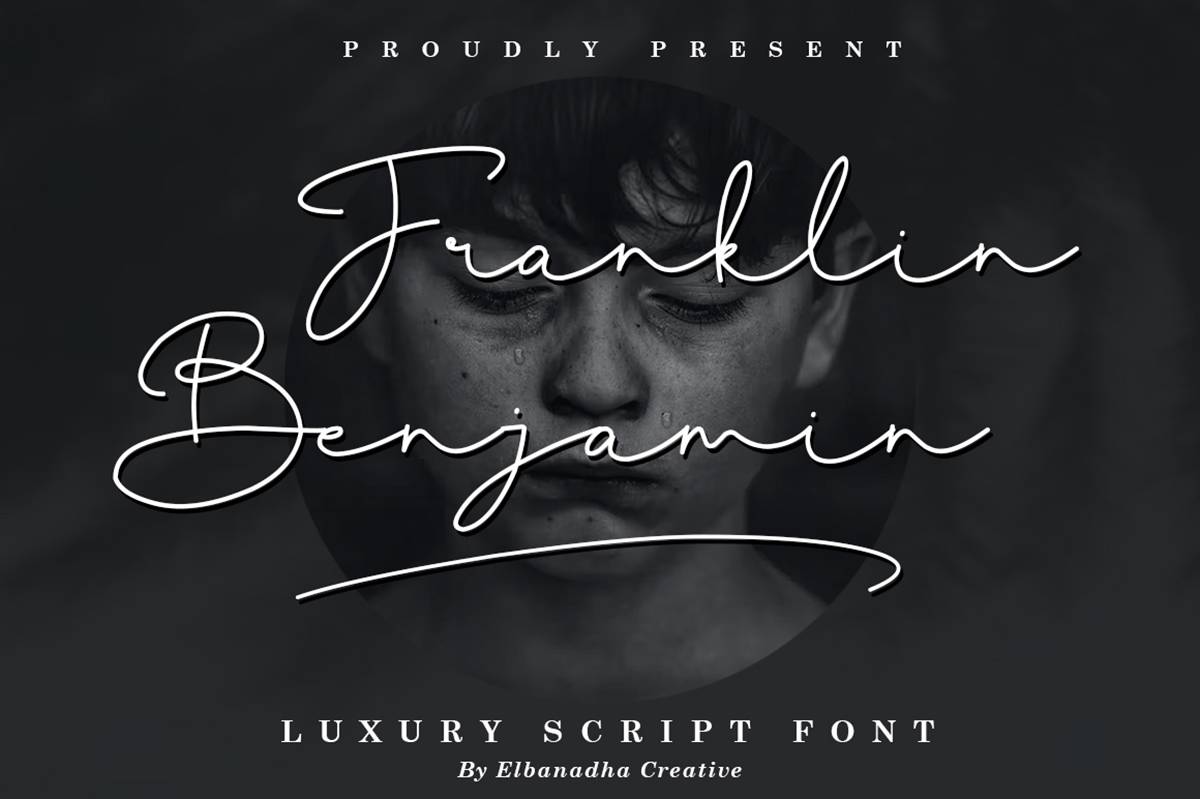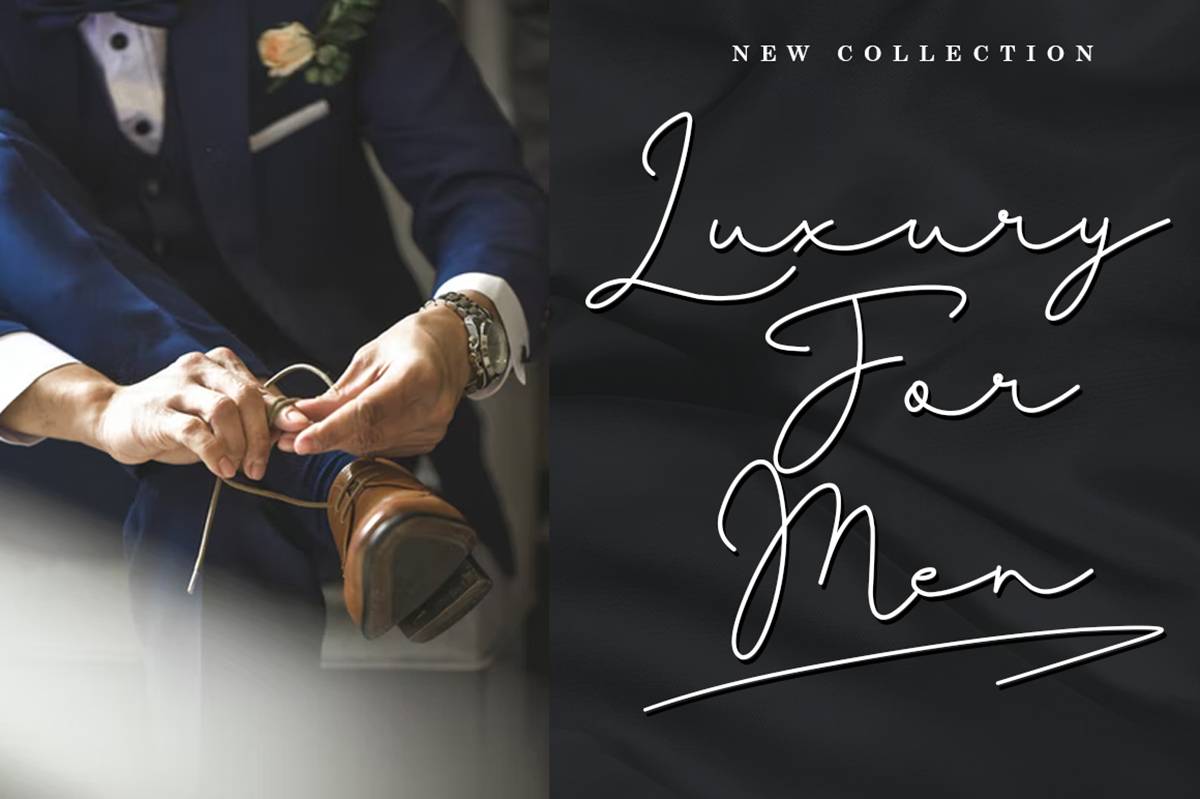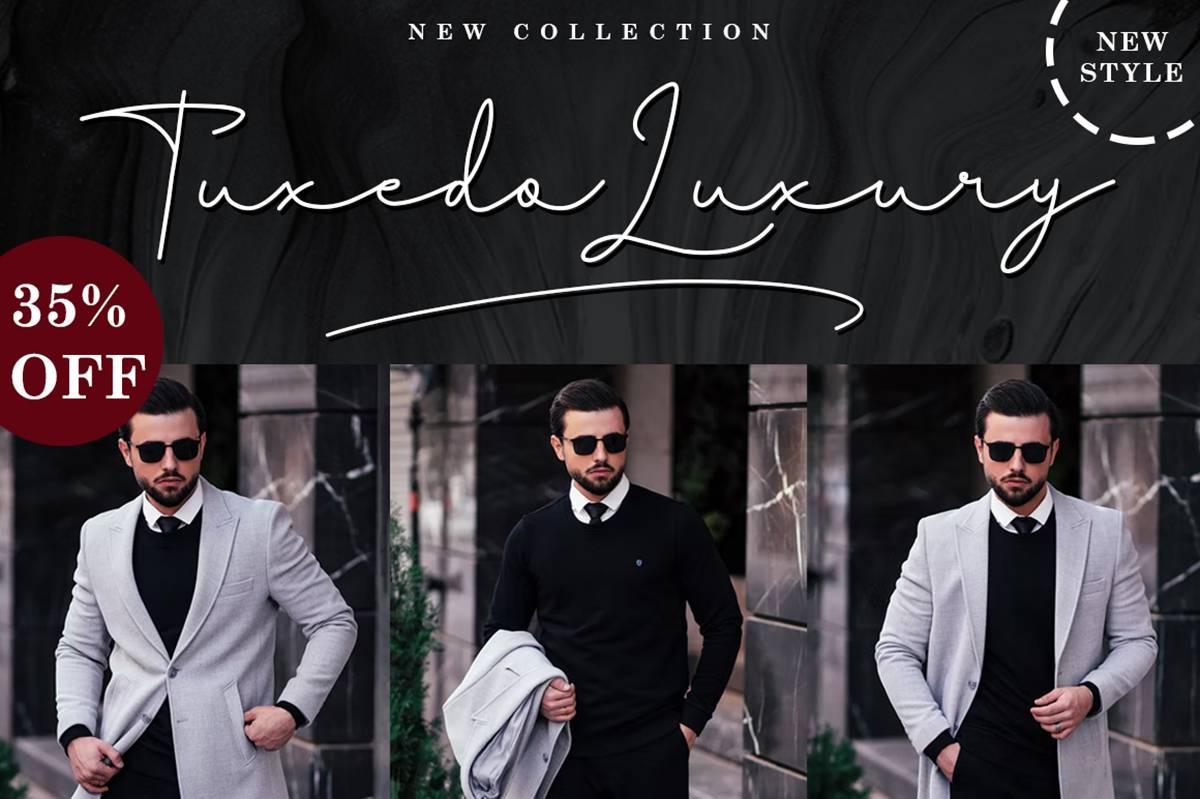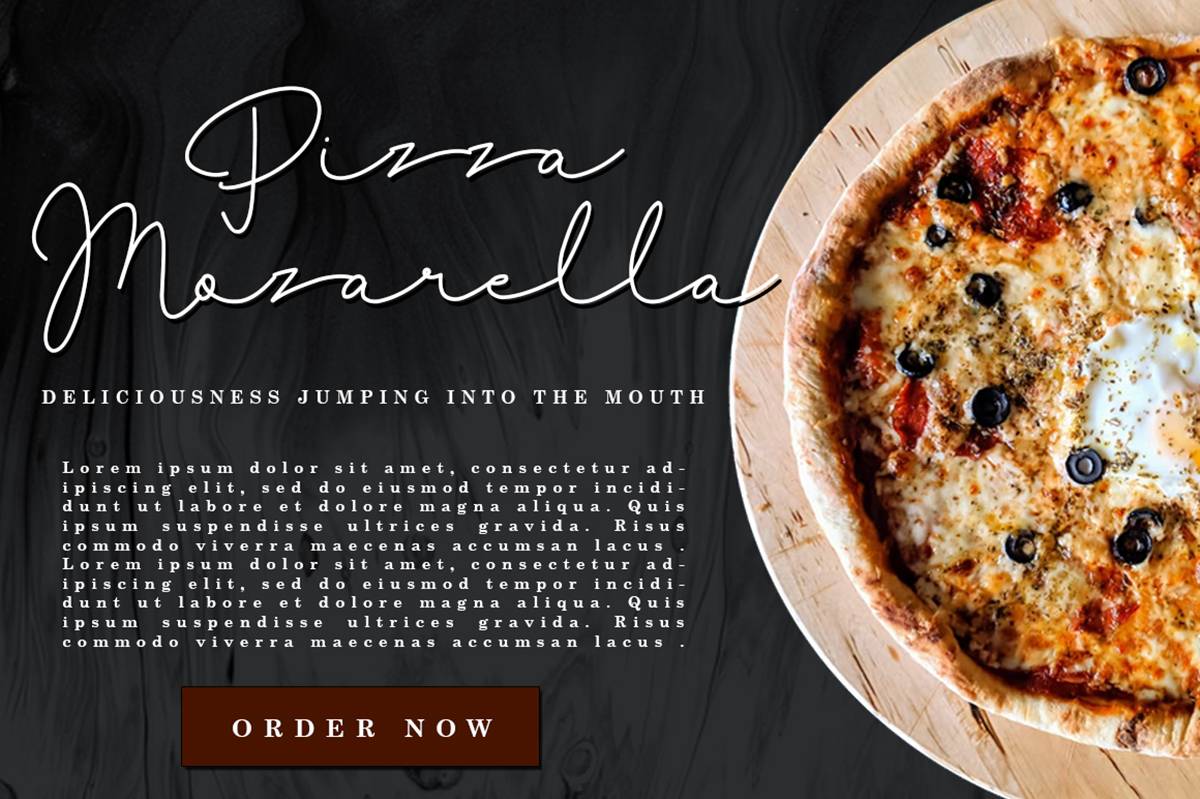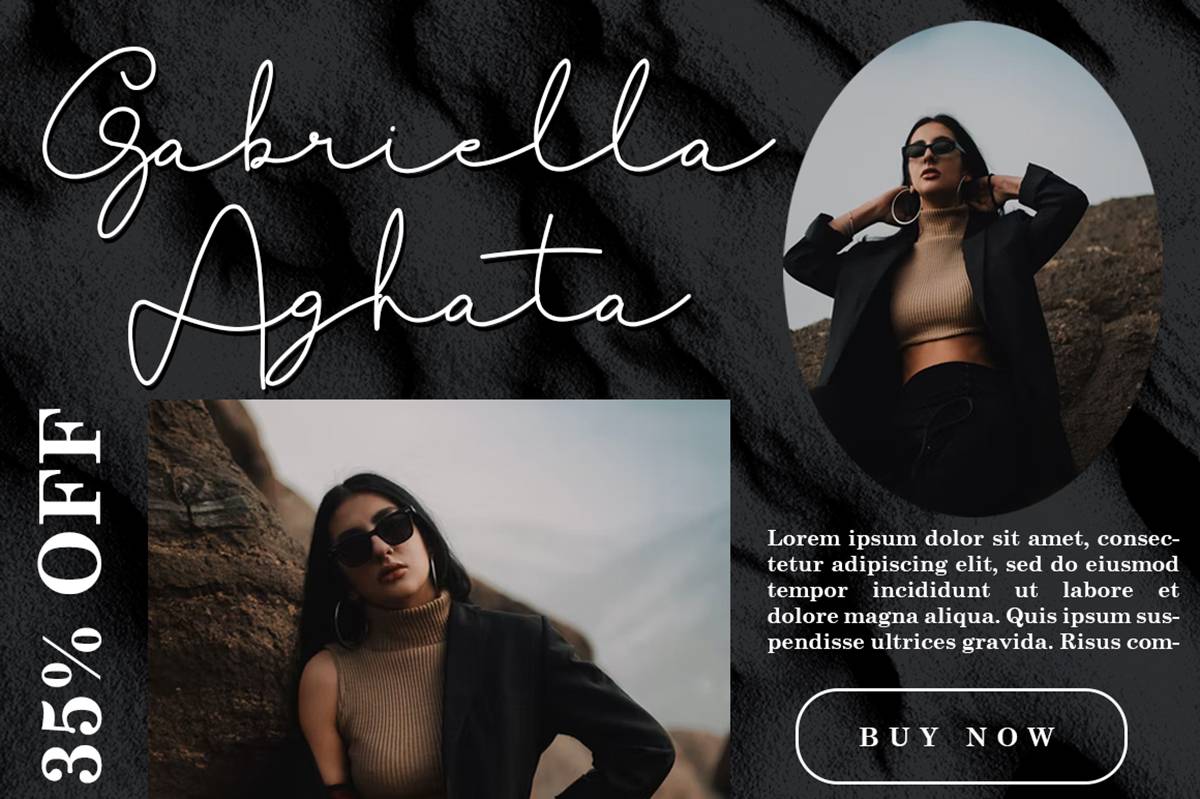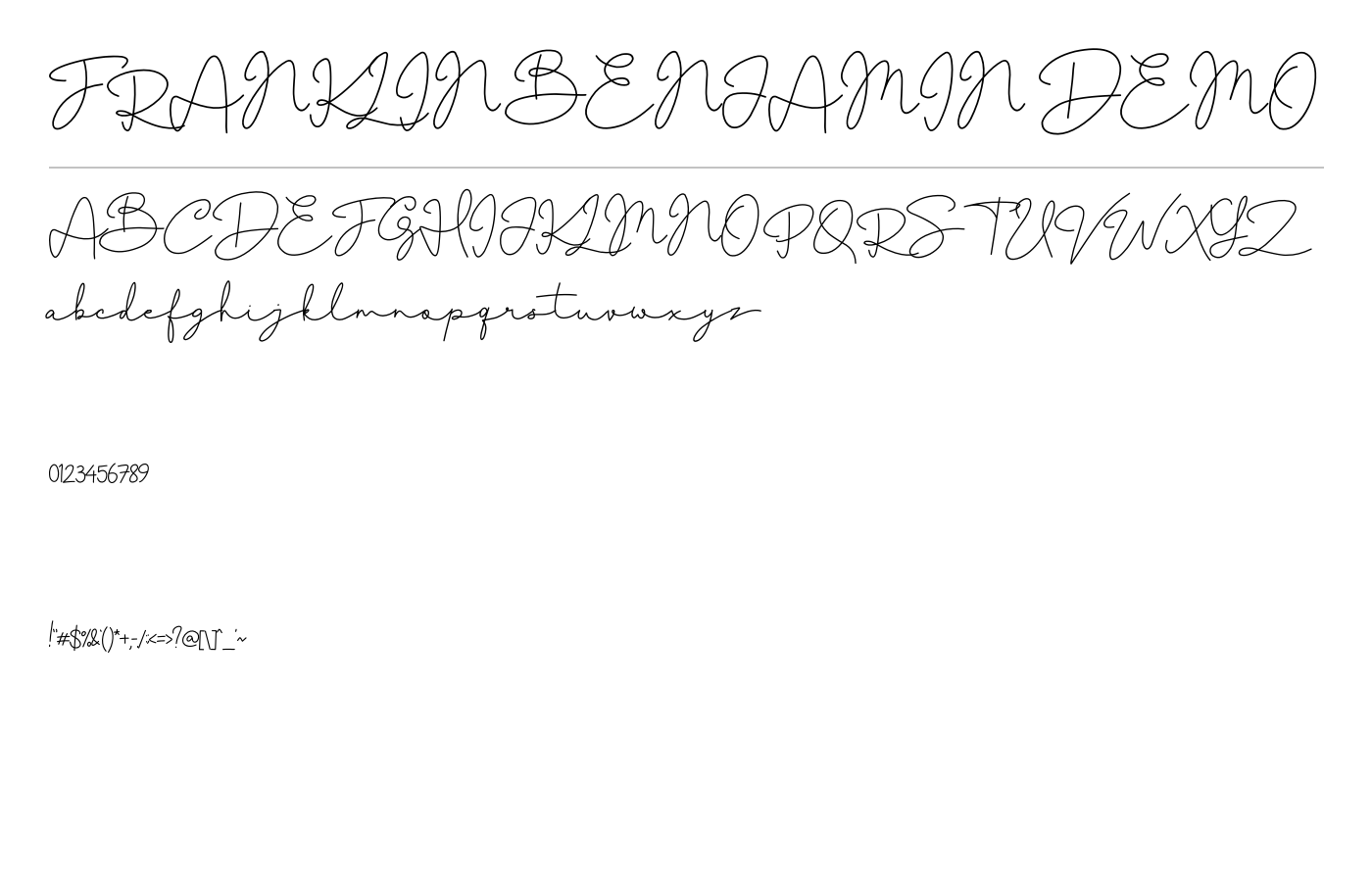
Franklin Benjamin is an elegant, delicate script font featuring thin, fluid strokes that create a hand-drawn, airy feel. Its slender letterforms with smooth, continuous lines make it ideal for invitations, branding, and projects that require a personal, sophisticated touch. This font shines in designs where a graceful, light aesthetic is desired.
Franklin Benjamin Font
About Franklin Benjamin Font
| Font family | Franklin Benjamin Font |
| Designer | Elbanadha Creative |